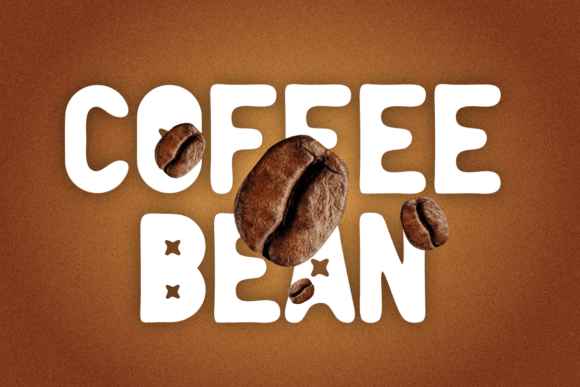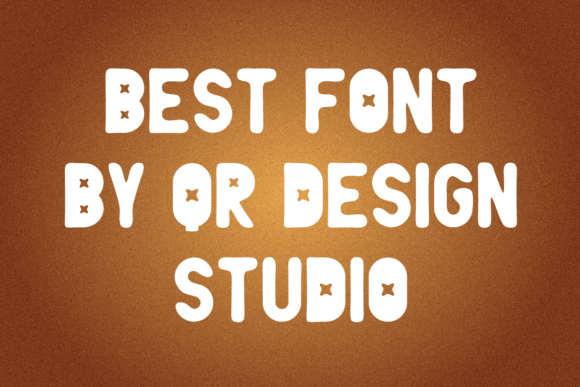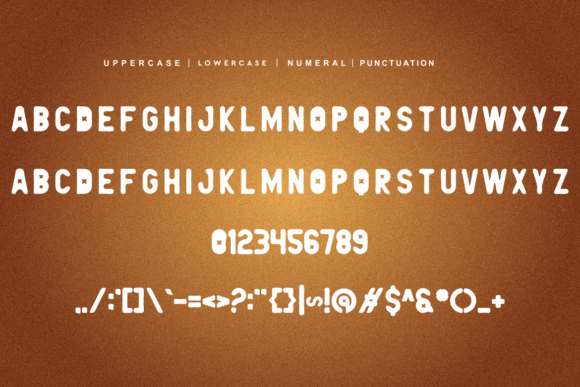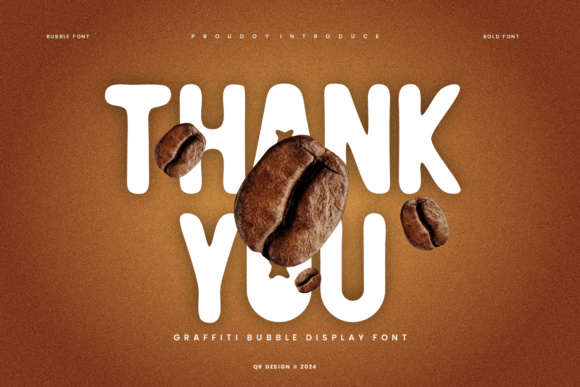
The Perfect Font for Your Next Masterpiece
There’s nothing quite like the thrill of sitting in front of a blank canvas, computer screen, or piece of paper, ready to bring your creative vision to life. You’ve got a spark of inspiration, a dash of imagination, and a whole lot of potential. But, let’s be honest, the right font can make all the difference between a mediocre creation and a masterpiece. That’s where the Bubble Beoged Font comes in – a bold, assertive sans serif font that’s sure to elevate your work to new heights.
Whether you’re a seasoned designer or just starting out, the Bubble Beoged Font is an incredible asset to have in your toolkit. Its versatility and unique style make it the perfect addition to any project, from logos and branding to digital graphics and print materials. With the Bubble Beoged Font, you’ll be able to bring your vision to life in a way that’s both visually striking and professionally polished.
Bubble Beoged Font Key Features
- Font Family: Bubble Beoged Font is a unique, hand-drawn font designed to add a playful touch to any project.
- Character Set: Includes a wide range of characters, including uppercase and lowercase letters, numbers, and punctuation marks.
- Unique Characteristics: Features a distinctive bubble-like design, with rounded edges and subtle texture, giving it a friendly and approachable feel.
Bubble Beoged Font Review
Overall, I think the Bubble Beoged Font has some great qualities that make it a solid choice for certain projects. Here are a few things that work well: ✨
- The font’s playful, whimsical feel is perfect for children’s books, greeting cards, or other designs that need a lighthearted touch.
- The bold, rounded edges of the font make it easy to read, even at small sizes.
- The font comes in a range of weights and styles, making it versatile and easy to customize.
However, there are a few limitations that might make it less suitable for other projects: ⚠️
- The font’s rounded edges can also make it feel a bit soft or amateurish in certain contexts, such as corporate branding or serious news articles.
- The font’s lack of subtlety and nuance can make it feel overwhelming or too busy in complex designs.
- The font is not optimized for digital use, which can lead to pixelation or distortion at smaller sizes.
Overall, I think the Bubble Beoged Font is a great choice for projects that need a fun, playful touch. However, it may not be the best fit for more serious or complex designs.
Tip: Use Bubble Beoged Font to create eye-catching headings and titles in your designs.
Tip: Use Bubble Beoged Font to create unique and playful text effects in your designs.
Tip: Use Bubble Beoged Font to add a touch of whimsy to your presentations and documents.
Bubble Beoged Font is perfect for:
- Playful advertisements
- Whimsical social media graphics
Remember to experiment with different font sizes, colors, and styles to get the most out of Bubble Beoged Font.
Bubble Beoged Font is a sans-serif font known for its rounded edges and playful feel. However, there are several alternatives that designers can use to achieve similar effects. Here are a few options:
Great Vibes is a modern script font that features a relaxed, casual feel. It’s perfect for use in logos, titles, and body text where a friendly, approachable tone is desired. Great Vibes is more fluid and organic than Bubble Beoged Font, making it ideal for creative projects that require a touch of whimsy.
Comparison: While Bubble Beoged Font is more geometric and structured, Great Vibes is more free-flowing and expressive.
Lato is a sans-serif font that features clean lines and a modern aesthetic. It’s a great choice for use in body text where a clear, easy-to-read font is desired. Lato is more formal than Bubble Beoged Font and lacks the rounded edges, making it suitable for corporate or professional projects.